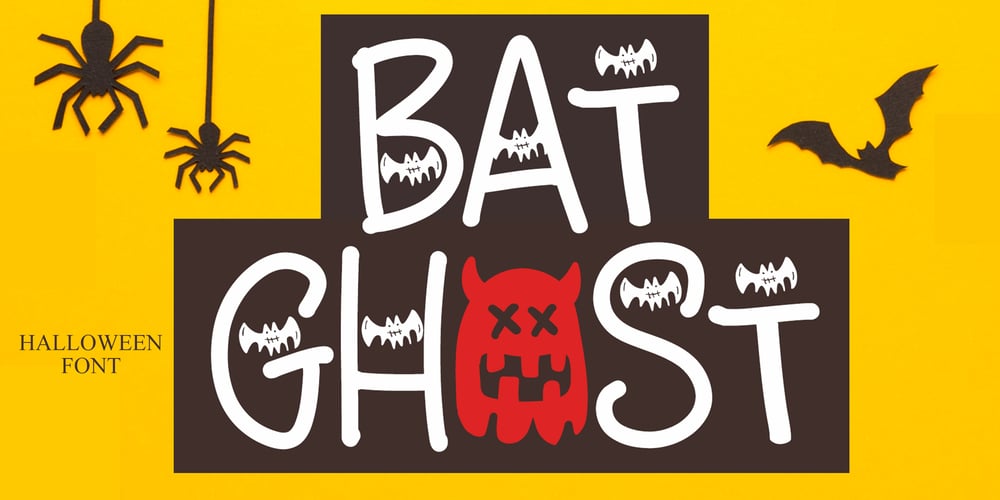
Bat Ghost Font Family was designed by Ahmad Afandi and published by Letterafandi Studio. Bat Ghost contains 1 styles and family package options. Bat Ghost is a Halloween decorative font. Add it to your Halloween crafts, horror movie posters, t-shirts and other about Halloween.